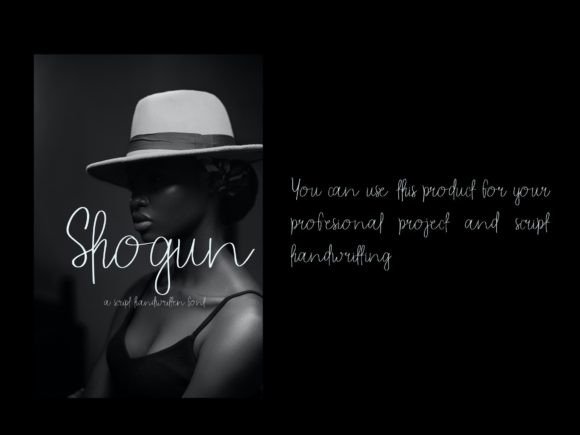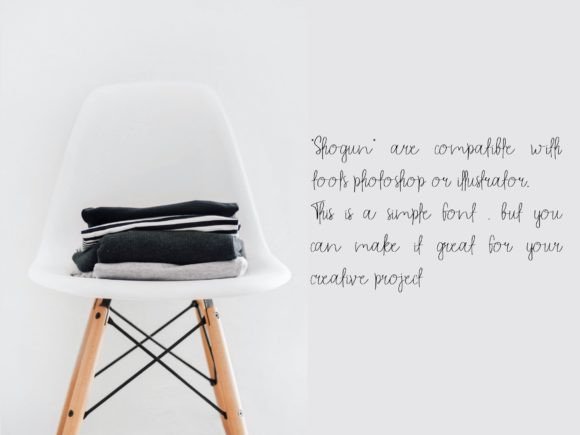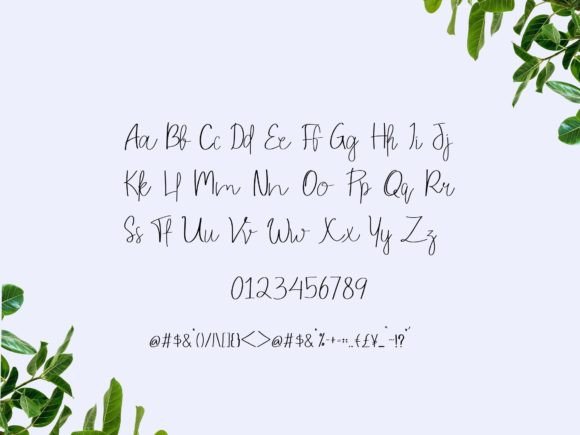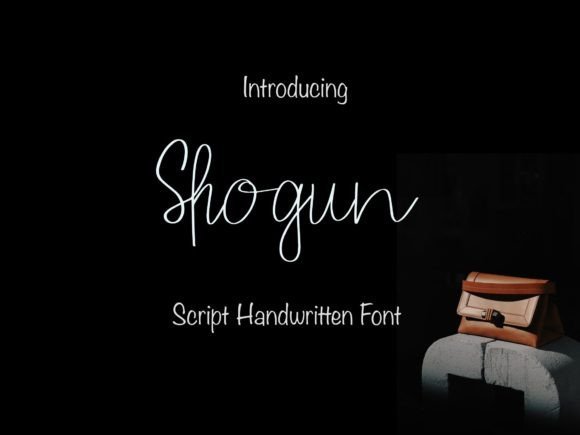
Introduction to Shogun Font
Shogun is a simple handwritten font.
This product can use for wedding invitation cards, logos, company names, and other creative products .
Why Choose Shogun Font?
Shogun Font offers exceptional quality and versatility, making it a valuable addition to your design toolkit. Whether you’re creating for personal projects or commercial use, Shogun Font delivers professional results.